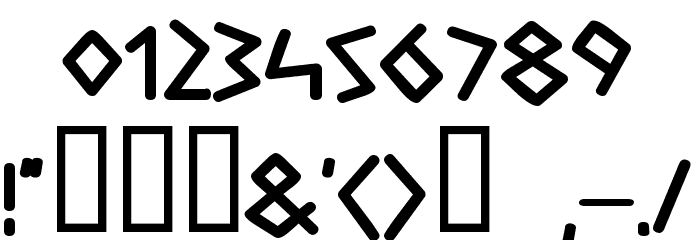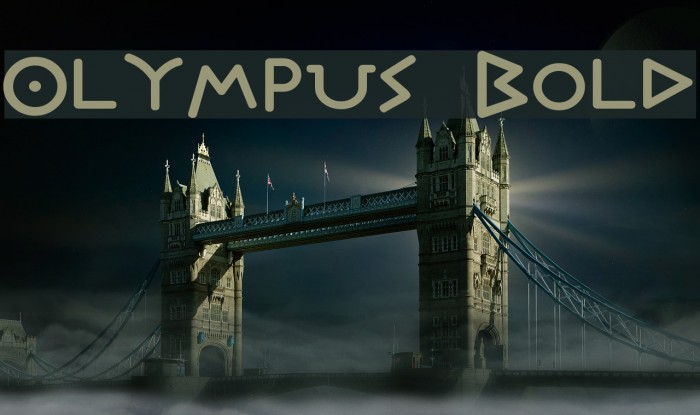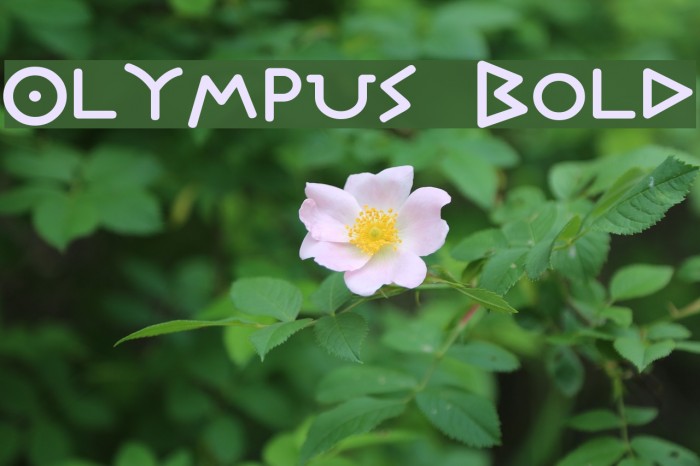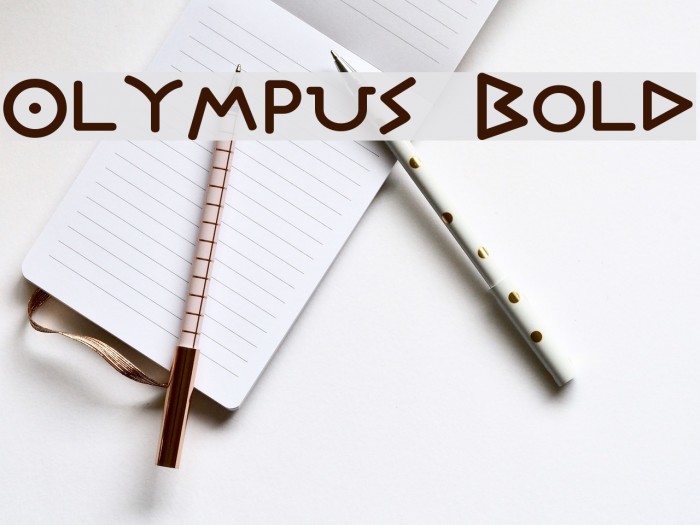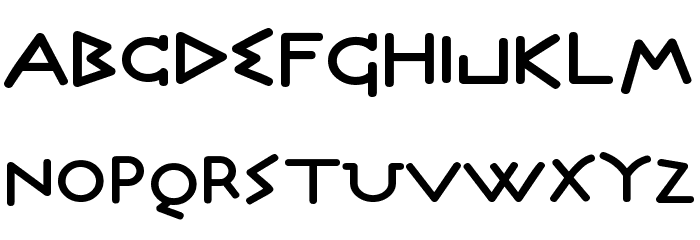
Olympus Bold Font
Olympus Bold Description
This font features a bold and geometric style with a modern twist. The characters are constructed with thick, uniform strokes that give it a strong presence. The angular shapes and sharp edges create a futuristic and tech-inspired look. The uppercase letters have a consistent height, while the lowercase letters maintain a similar structure, adding to the cohesive design. The numbers and special characters follow the same geometric pattern, ensuring uniformity across all glyphs. This font is ideal for projects that require a bold and impactful visual statement.
| Proposed Projects | Ideal for technology branding, futuristic posters, video game titles, and digital interfaces. |